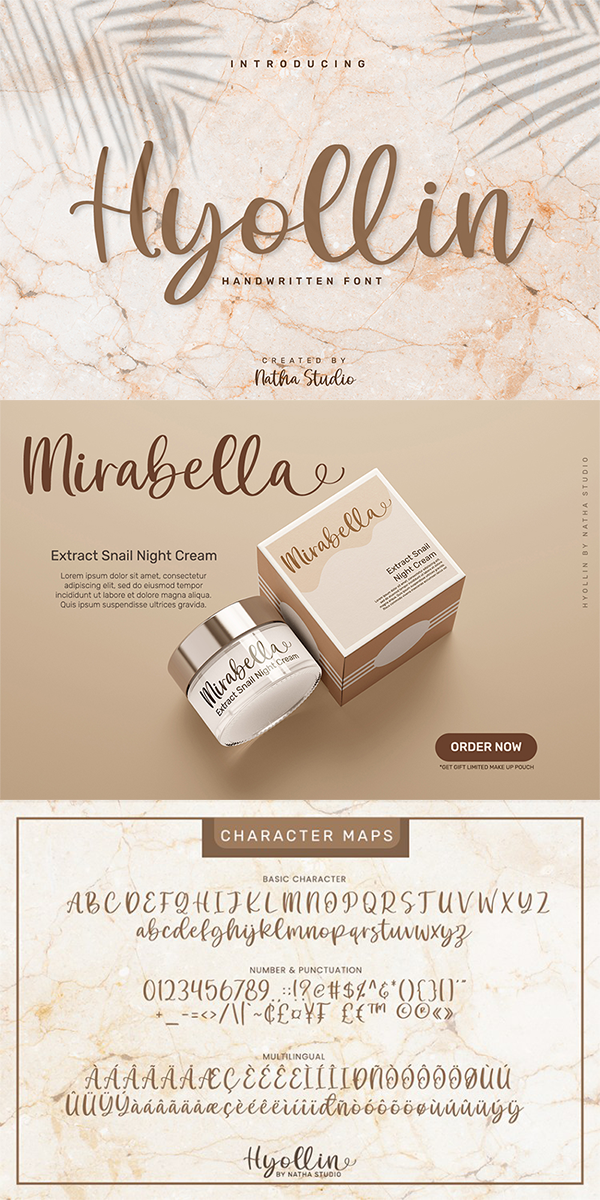
Hyolin Font
About Hyolin
Hyollin is a lovely handwritten font. It brings a beautiful and attractive typeface. Made for any professional projects. This font will look amazing in wedding invitations and greeting cards to social media quotes, branding, and more!
Featured :
-Standard Ligatures